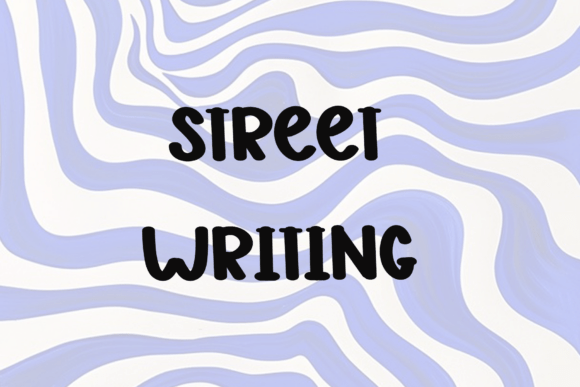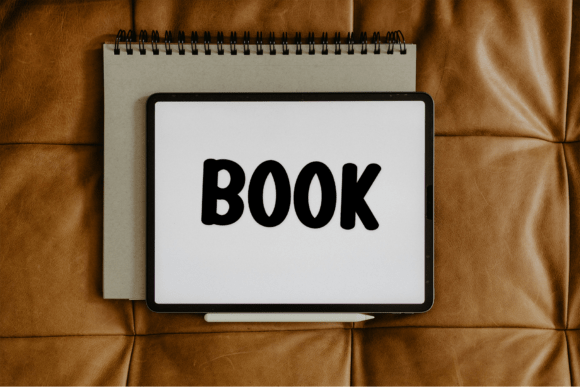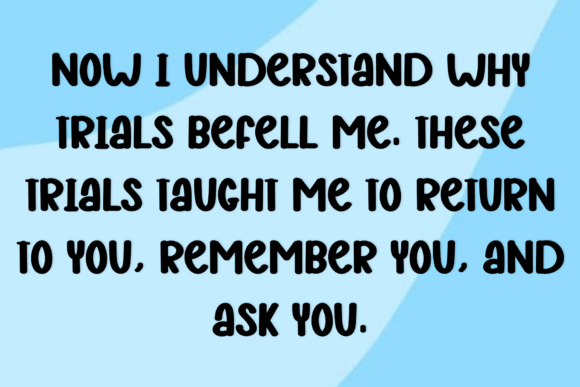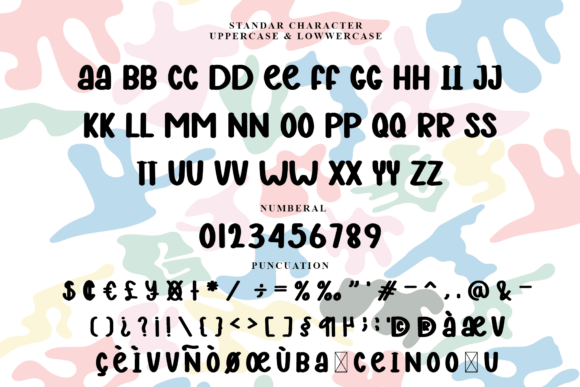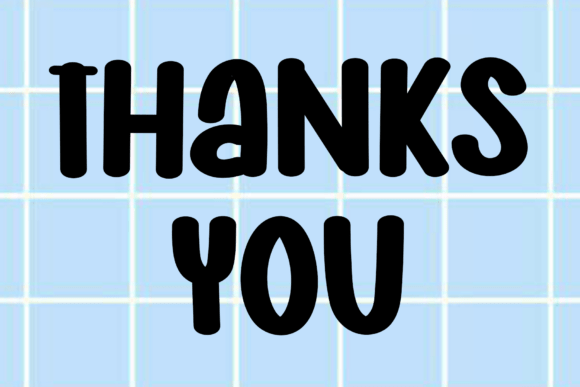
Unleash Your Creativity with Bundle Font
Have you ever sat in front of your computer, staring blankly at a blank canvas, desperately searching for the perfect font to bring your design to life? We’ve all been there. But what if I told you that the perfect font is just a click away? Introducing Bundle Font, a sweet and friendly handwritten font that’s about to become your new best friend.
With its natural and unique style, Bundle Font is incredibly versatile and can be used in a wide range of designs, from elegant invitations to playful advertisements. The possibilities are endless, and the only limit is your imagination! As a designer, you’ll love the flexibility and creativity that Bundle Font offers, allowing you to take your designs to the next level.
- Unique Characteristics: Bundle Font features a unique blend of modern and classic elements, making it an ideal choice for designers and developers looking for a distinctive look.
Bundle Font Review
As a designer, I was excited to try out the Bundle Font, a collection of fonts designed to work together seamlessly. After using it for a few projects, here’s my honest review.
- Consistency: The fonts in the Bundle are designed to be consistent in style and feel, making it easy to create a cohesive look across different elements.
- Flexibility: With a range of font styles and weights, I was able to create a variety of visual effects without having to switch to a different font.
- Easy to read: The fonts are clear and easy to read, even at smaller sizes, making it perfect for body text and headings.
- Limited expressiveness: While the fonts are consistent, they may lack the unique personality that a custom font can bring to a design.
- Not suitable for logos: The fonts may not be bold or striking enough for use in logos, where a unique visual identity is crucial.
Overall, I’m impressed with the Bundle Font’s consistency and flexibility. While it may not be the best choice for every project, it’s a solid option for designers who need a reliable font that works well across different elements. With a little creativity, you can create some amazing designs with the Bundle Font.